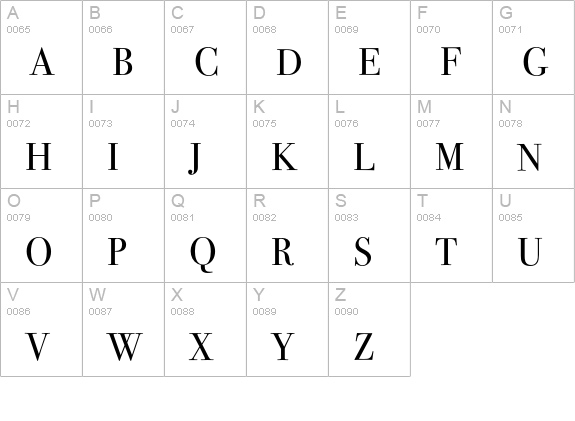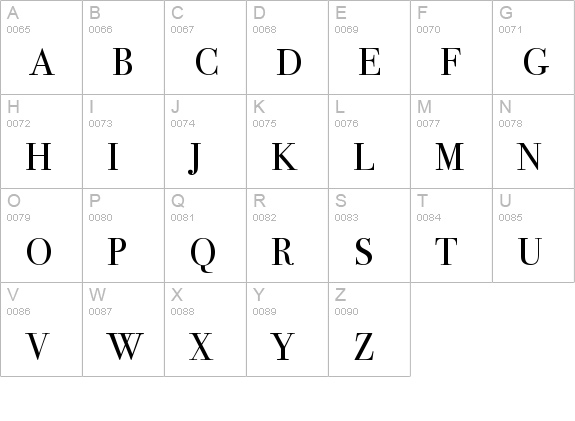
BodoniSeventytwoEF-Book is a comfortable, highly readable variant in the BodoniSeventytwoEF typeface family \xE2\x80\x94 well suited to long-form body text, articles, and editorial content.
BodoniSeventytwoEF-Book is a classic and elegant serif font that exudes sophistication and timelessness. With its clean lines and graceful curves, this font is perfect for adding a touch of refinement to any design project. Its versatility makes it suitable for a wide range of applications, from editorial design to branding and beyond. What sets BodoniSeventytwoEF-Book apart is that it is available for free download at FontsMarket.com, making it accessible to designers and creatives looking to elevate their work with a high-quality typeface. Whether you're working on a print publication, website design, or any other project that calls for a touch of sophistication, BodoniSeventytwoEF-Book is sure to impress with its timeless appeal. Download this exquisite font today and take your designs to the next level.